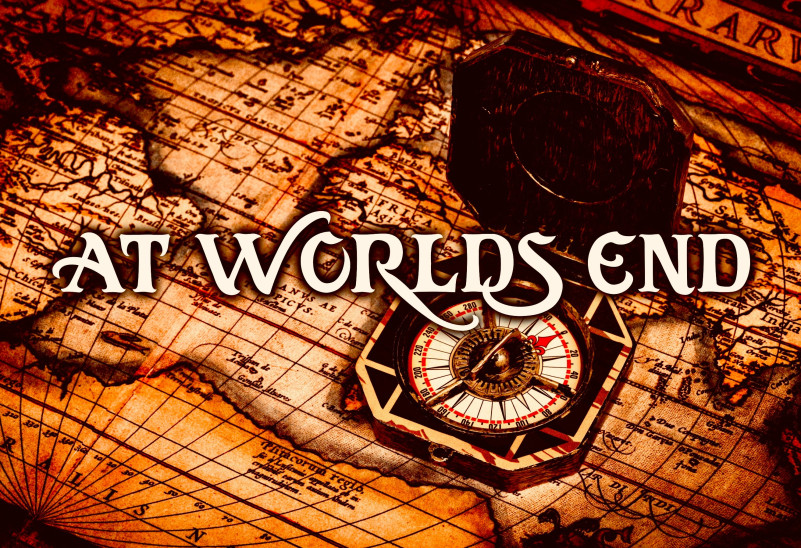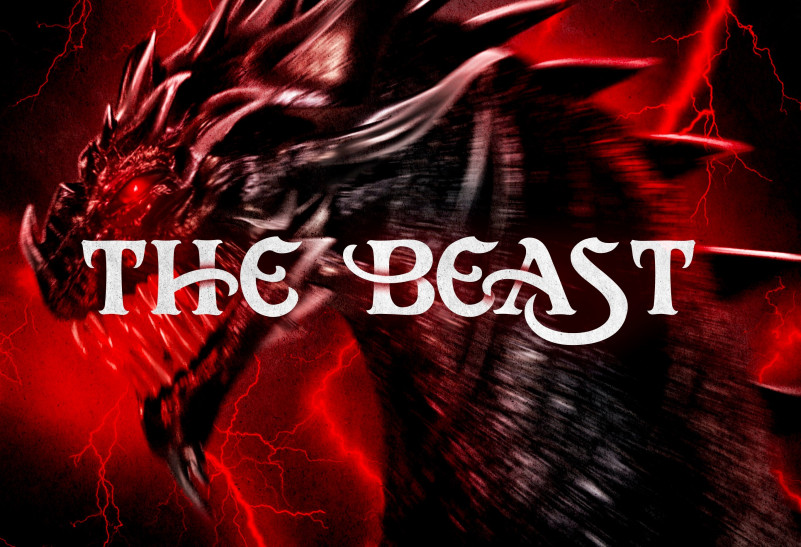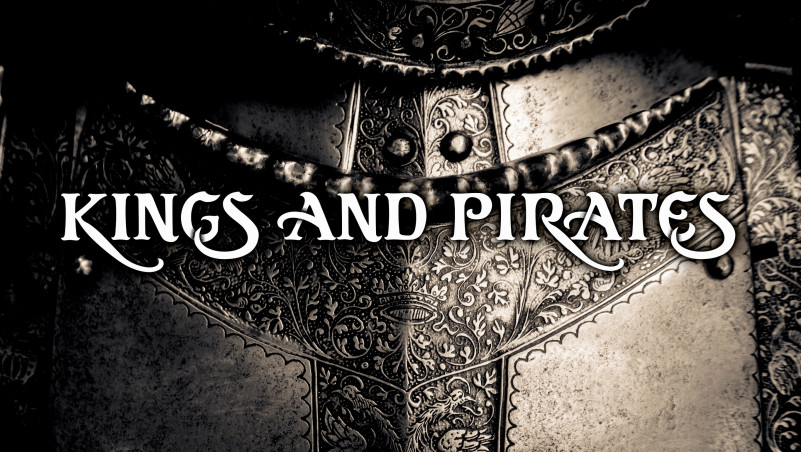
Kings And Pirates Display Font, A medieval, pirate font, based on a previous font of mine. JoannaVu
Kings And Pirates Font
| Classification: | Display Fonts, Retro / Vintage Fonts |